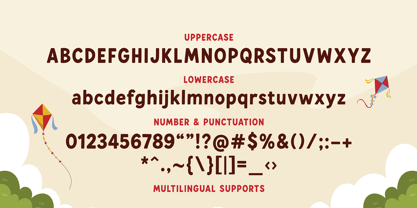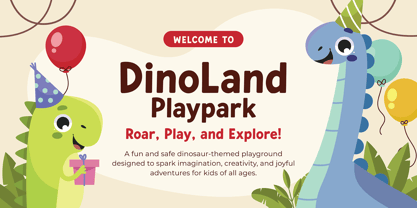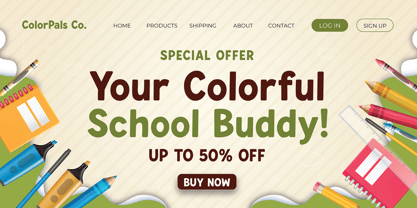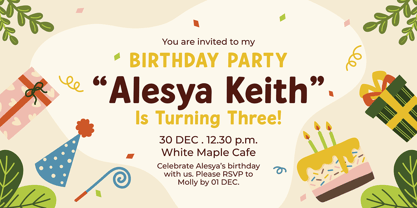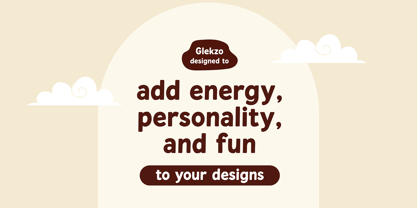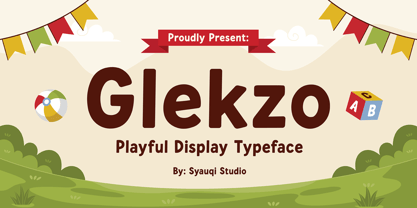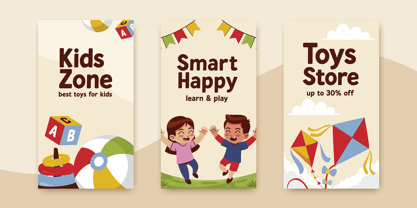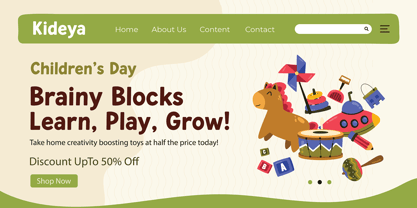
Glekzo
by Syauqi Studio
The Glekzo Font Family was designed by Muhammad Asroful Umam and published by Syauqi Studio. Glekzo contains 1 styles. More about this family
Glekzo – Playful Display Typeface Glekzo is a playful display typeface designed to add energy, personality, and fun to your designs. With bold curves, unique shapes, and a friendly rhythm, Glekzo creates a cheerful and eye-catching look that immediately draws attention. Ideal for designers seeking a modern yet expressive typeface, Glekzo works perfectly for children’s branding, product packaging, creative posters, social media graphics, editorial headlines, apps, stickers, and any project that needs a playful personality. Featuring a clean structure with charming, whimsical details, Glekzo is highly readable while maintaining a unique style that makes your designs memorable. Key Features: Bold, friendly, and highly expressive character style Perfect for branding, packaging, digital content, social media, and more Eye-catching personality that stands out and engages viewers Bring joy, charm, and confidence to your next creative project with Glekzo, a fun and modern display font for every designer. Thank you, Best regards Syauqi Studio
Designers: Muhammad Asroful Umam
Foundry: Syauqi Studio